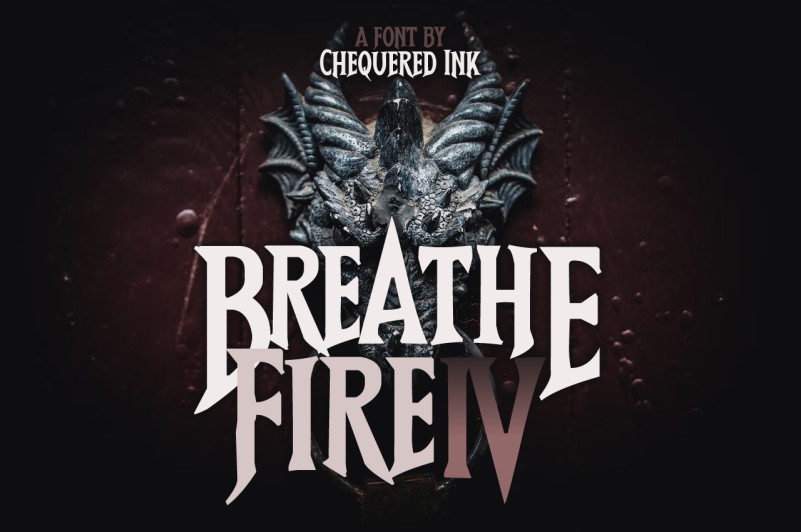
Breathe Fire IV Font
Breathe Fire IV Display Font, This font is perfect for stickers, retro projects, craft projects, shirts, svg designs, procreate designs, branding, blogs, logos, invitations and more!